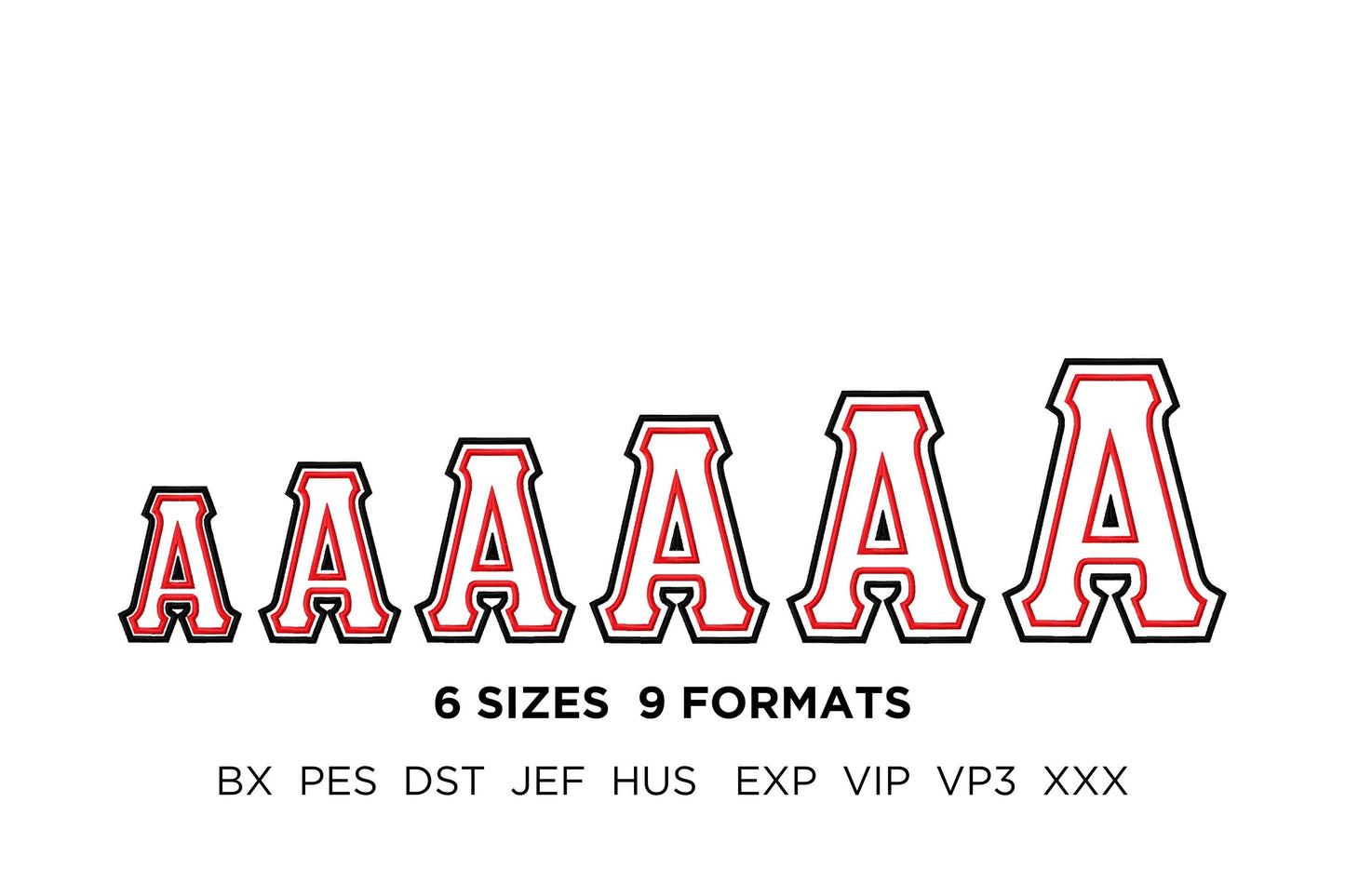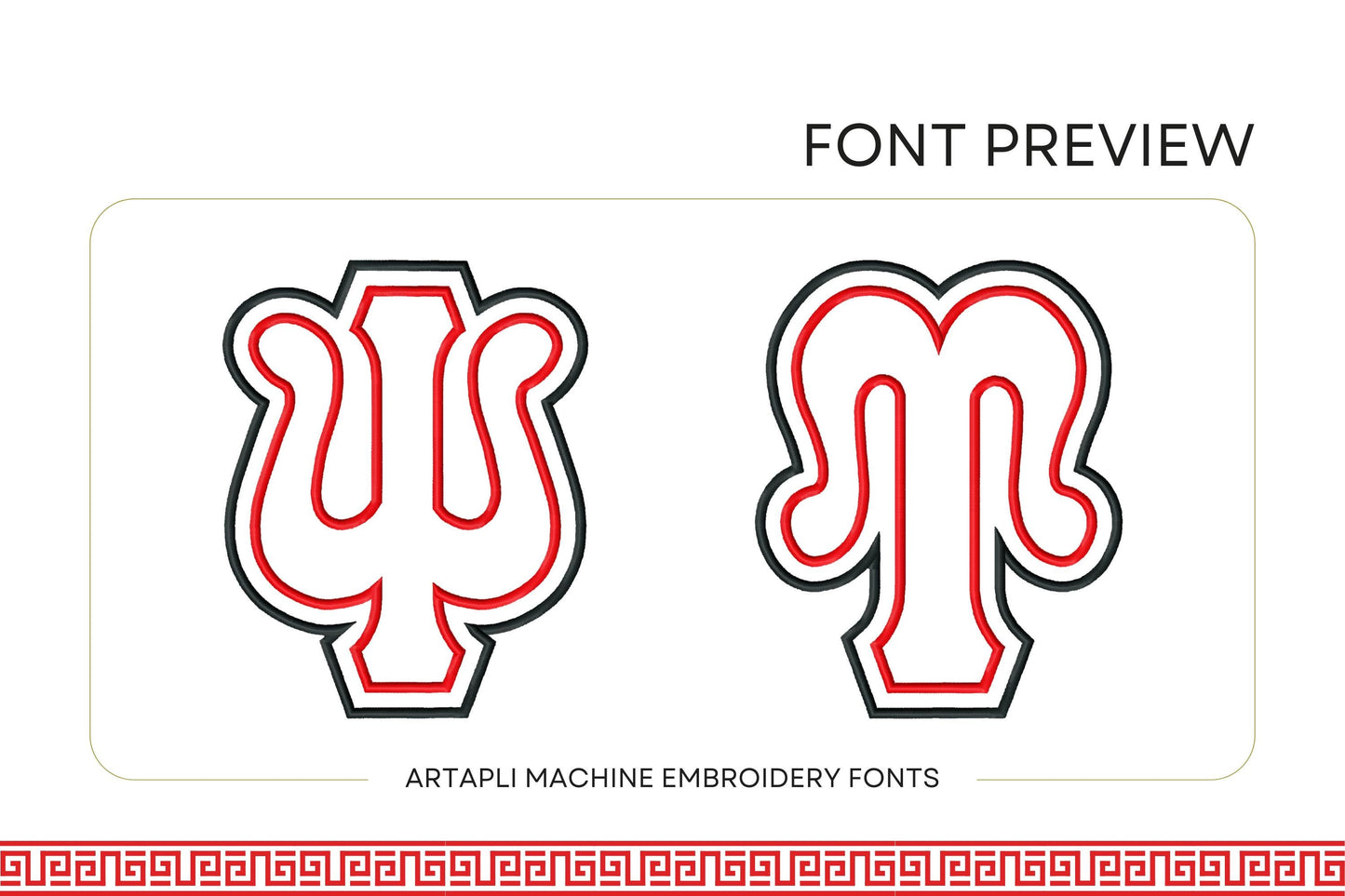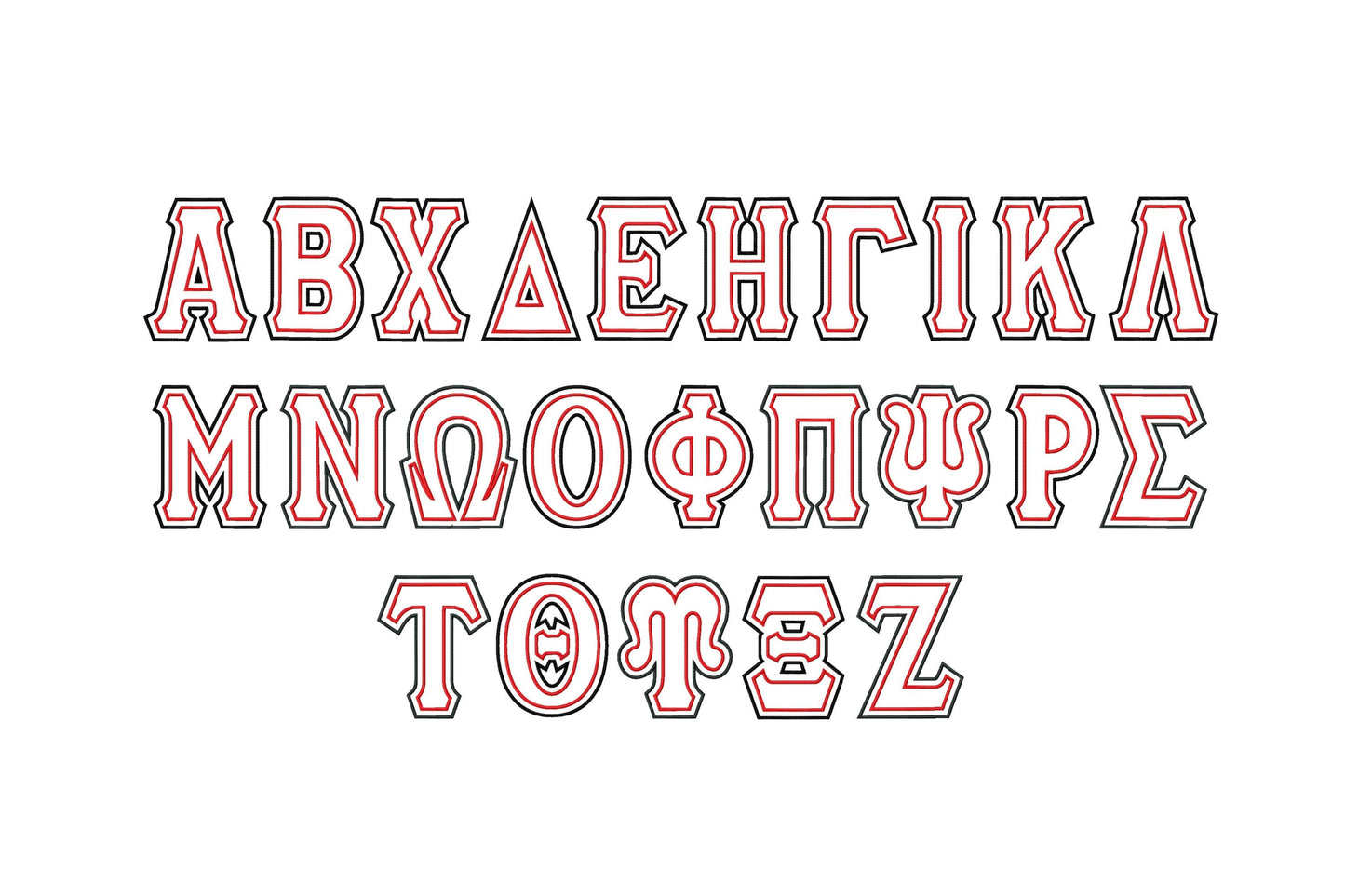
Two Layers Applique Tall Greek Font
Sizes (inches): 4", 4.5", 5", 5.7", 6.3", 7"
All 24 Greek letters in six sizes: 4, 4.5, 5, 5.7, 6.3 and 7 inches. Double-layer applique.
- 24 tall Greek letters, double applique
- 6 sizes, 4 to 7 in